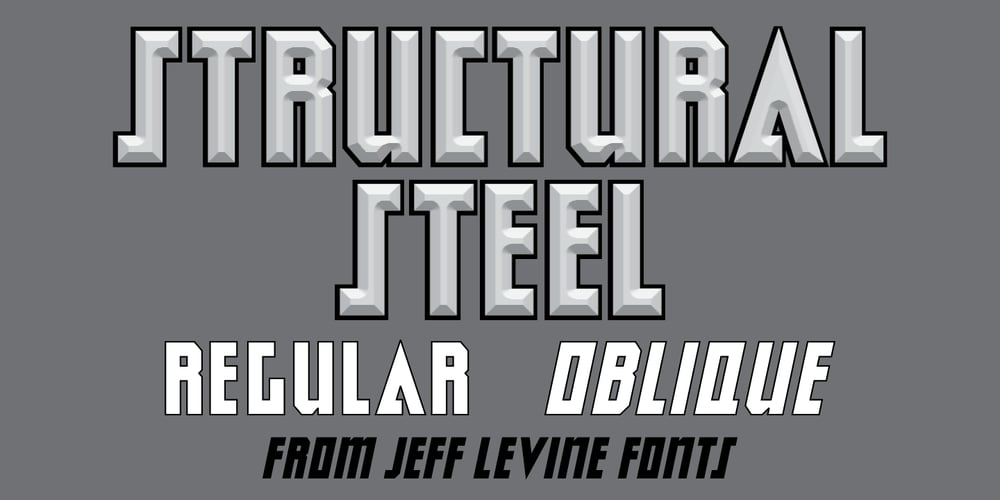
Structural Steel JNL Font Family was designed by Jeff Levine and published by Jeff Levine. Structural Steel JNL contains 2 styles and family package options. An ad in the March 27, 1961 issue of Boxoffice Magazine for the film “Atlantis-The Lost Continent” featured the film’s title hand lettered in an ultra bold, block-like sans design.With some letters squared, and some chamfered at the corners, this typeface evokes strength and durability. It is available digitally as Structural Steel JNL in both regular and oblique versions.